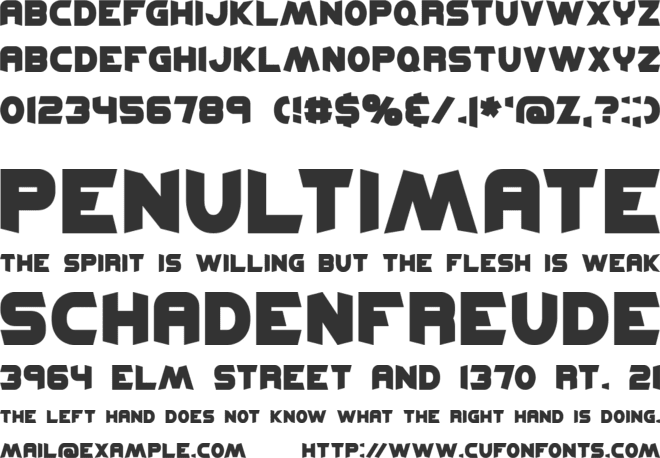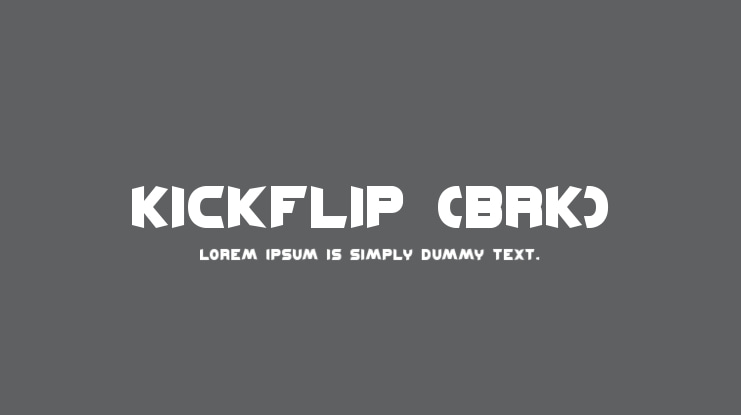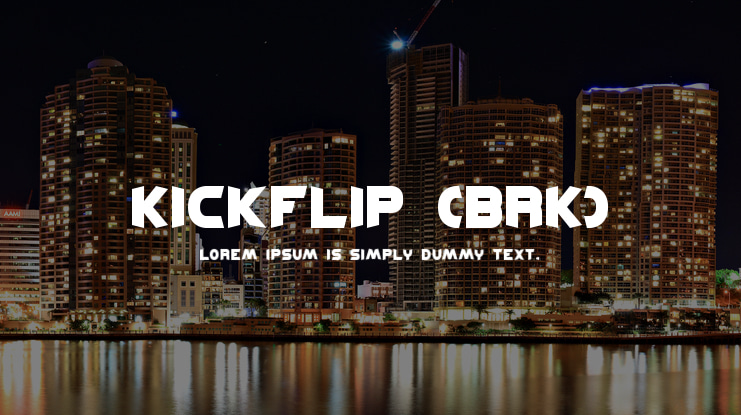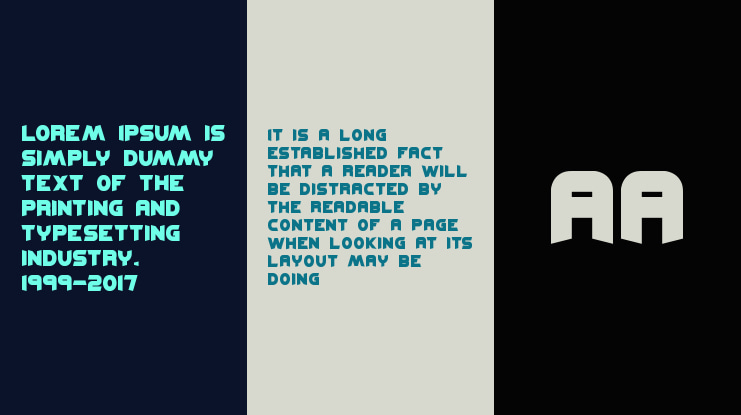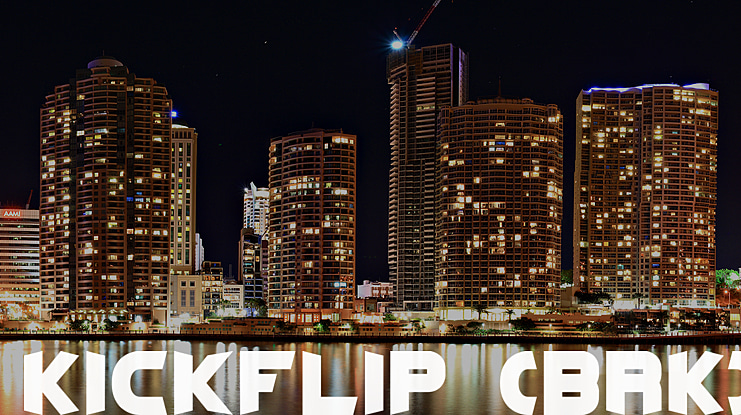
Kickflip (BRK) Font
This font is based on the logo I made for my game Kickflip. All of the 'prongs' in each character slant inward or outward, depending on what Case the character is.